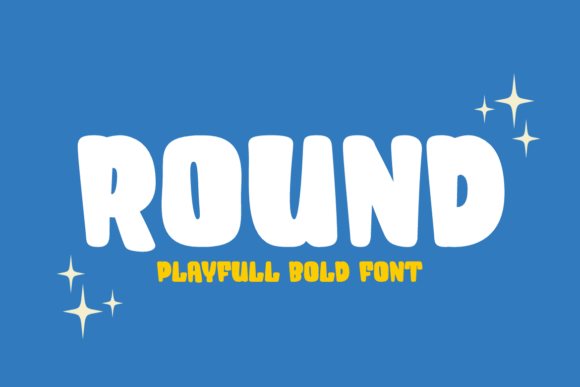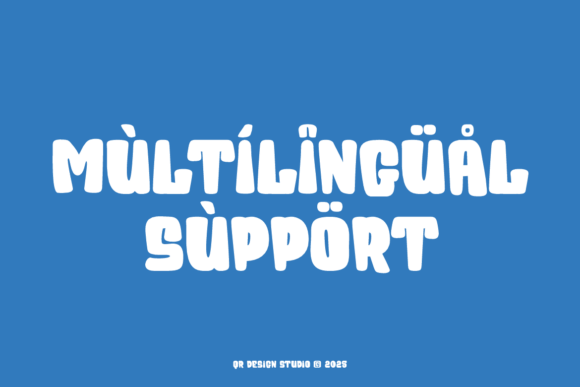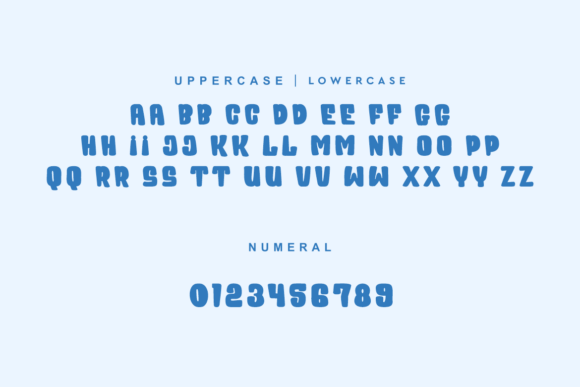
Introduction to Growed Font
Remember that moment when you stumbled upon the perfect font for your creative project? The one that instantly elevates your design from bland to grand? For designers, discovering a high-quality, versatile font like the Growed Font is a dream come true. This free download has been making waves in the design community, and for good reason.
With its bold, playful, and rounded display style, the Growed Font is the ultimate design resource for creating eye-catching headlines and titles. Its thick, blobby strokes and pillowy terminals give every word a friendly bounce, making it perfect for kids’ products, snacks, summer events, DIY crafts, and fun social graphics. Whether you’re working on a project with a transparent background or a bright, bold palette, the Growed Font is sure to bring charm and confidence to your design.
Key Features of Growed Font
- High-quality, free download font ideal for creative projects and design resources.
- Unique, modern design with a touch of elegance, perfect for branding and visual identity projects.
- Comprehensive character set, including uppercase and lowercase letters, numbers, and punctuation marks.
- Designed to be highly legible and versatile, suitable for a wide range of creative applications.
Honest Review: Growed Font
As a designer, I’m always on the lookout for high-quality design resources to elevate my creative projects. Recently, I came across the Growed Font and was excited to give it a try.
What works well: ✨ The font has a unique and modern feel to it, making it perfect for a variety of creative projects. The free download option is also a major plus, as it allows me to experiment with the font without breaking the bank.
The font’s transparent background option is also a great feature, allowing me to easily integrate it into my designs without any hassle.
Limitations: ⚠️ While the font is free to download, the quality is not as high as some of the premium fonts I’ve worked with. The characters can sometimes appear blurry or pixelated, especially when scaled up.
Overall, I would recommend the Growed Font for designers on a budget or those looking for a unique font to add some creativity to their projects. Just be aware of the potential limitations and use it in moderation.
- Perfect for: Creative projects, design students, and hobbyists
- Not recommended for: High-end commercial projects or those requiring high-quality, scalable fonts
Tips for Getting the Most Out of Growed Font
Use the Growed Font in combination with a transparent background to create a unique and eye-catching design. Experiment with different font sizes and colors to add depth and interest to your design. You can also use the font in conjunction with other design resources, such as graphics and images, to create a cohesive and professional-looking design.
The Growed Font is a versatile font that can be used in a variety of design projects, including logos, business cards, and social media graphics. It is also a great font to use in presentations, such as PowerPoint or Word, to add a touch of creativity and professionalism to your slides.